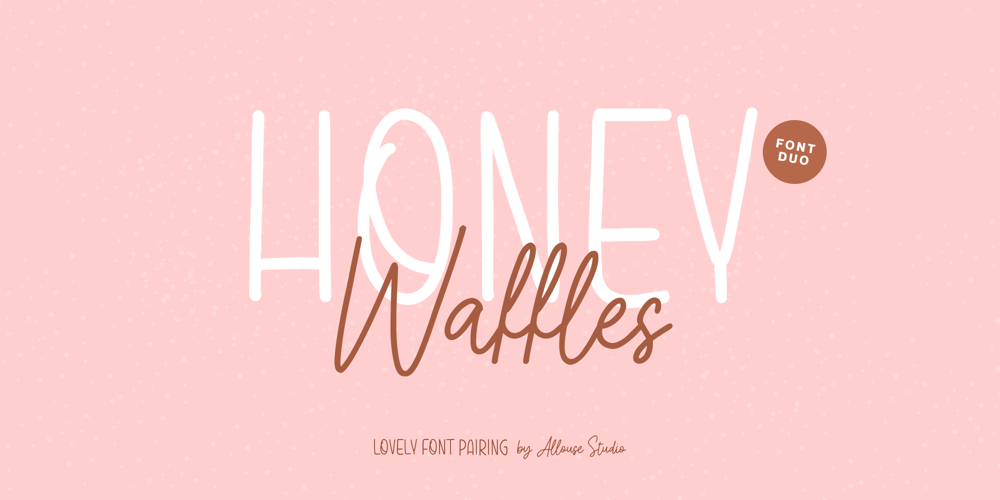
Honey Waffles Font Family was designed by Fachrizal Yusuf and published by Allouse Studio. Honey Waffles contains 1 styles and family package options. Proudly Presenting, Honey Waffles is a Lovely Font Pairing.Honey Waffles is perfect for any titles, logo, product packaging, branding project, megazine, social media, wedding, or just used to express words above the background.Honey Waffles also come with Multi-Lingual Support.Enjoy the font, feel free to comment or feedback, send me PM or email. Thank You!